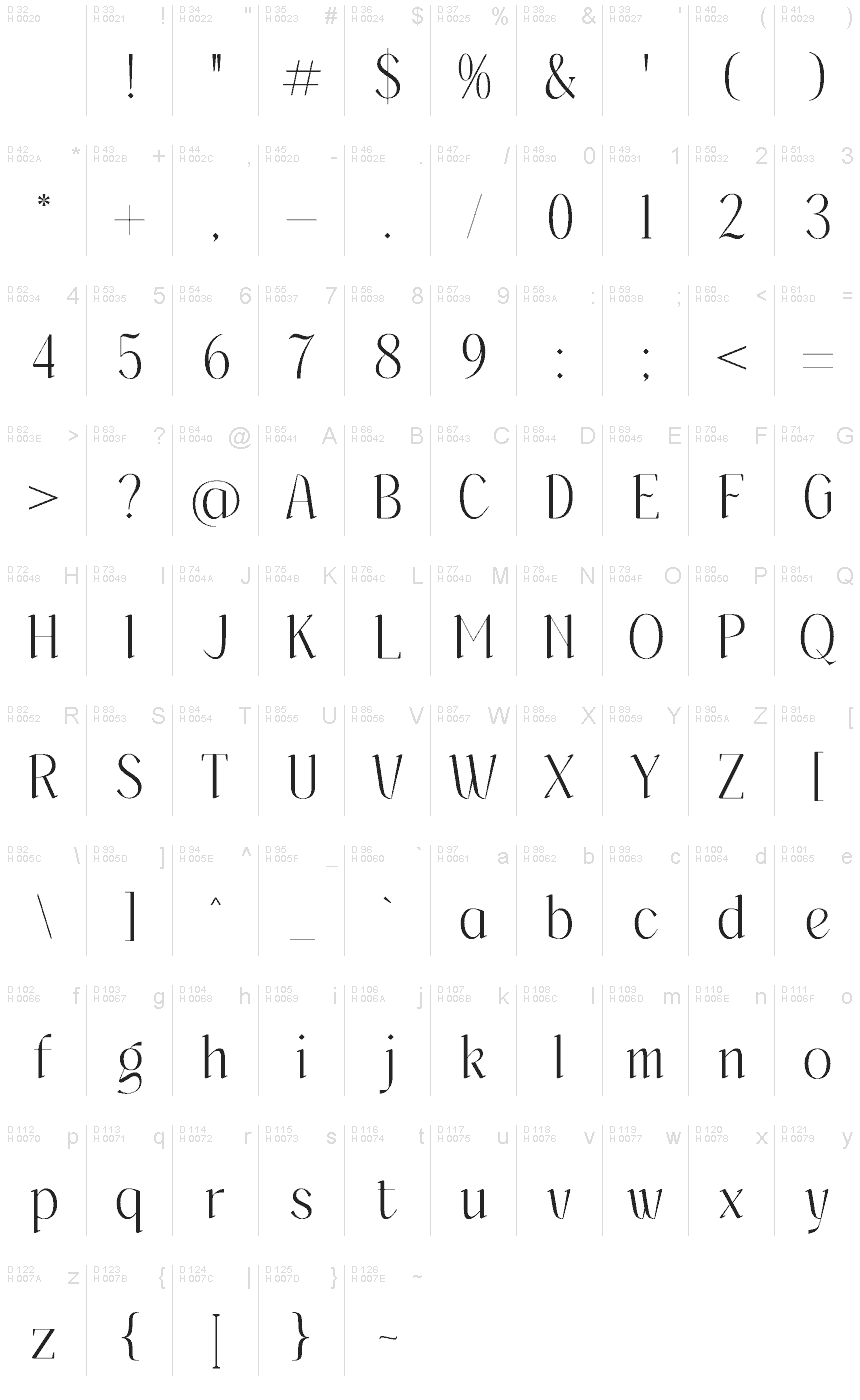
Wersfiga
Wersfiga font by Storytype Studio is a display font with an elegant and sophisticated appearance. It professes a modern serif and light design at its core. Each of the letters appearing as if carefully crafted, this typeface beautifully marries expressive design with attention to detail. At users’ disposal for various contemporary applications, Wersfiga suits fashion and luxury branding which are artistic in nature.
The free display font can be particularly useful for invitation cards, greeting cards, logo designs or websites related to beauty services such as spas, makeup artists etc. It represents a suitable choice for product packaging projects in jewelry, cosmetics or any premium retail category project that communicates luxury. Posters advertising high-end events can also be created using Wersfiga which generally makes interesting use in physical/online magazines or on social media poster content including content creators related to style outfits.